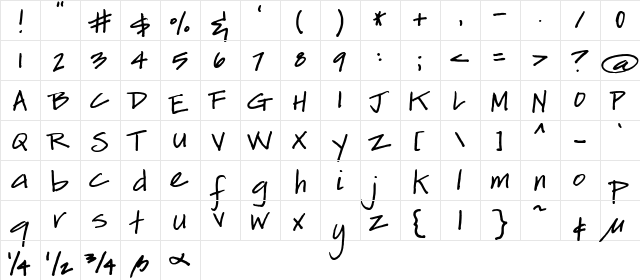
FG Mia Regular
Design Context for FG Mia Typeface
FG Mia takes a measured approach to typography — its balanced proportions and neutral character make it a reliable workhorse for both digital and print work.
Pro Tip: Pair FG Mia with a font of contrasting weight or personality to build a more expressive typographic hierarchy.